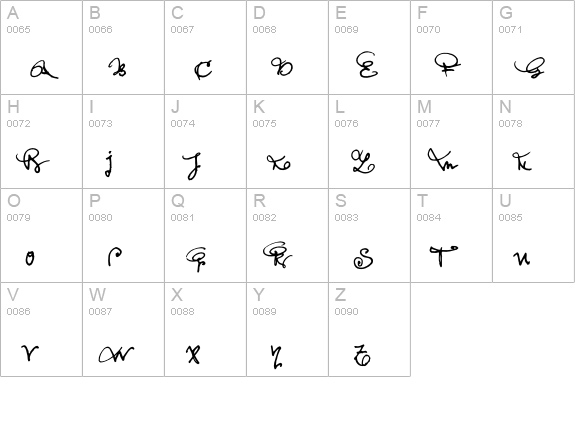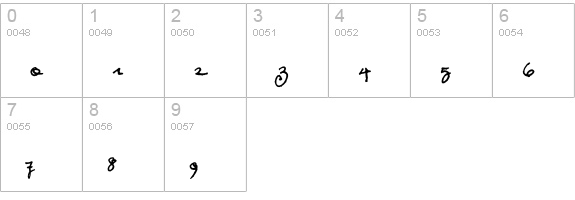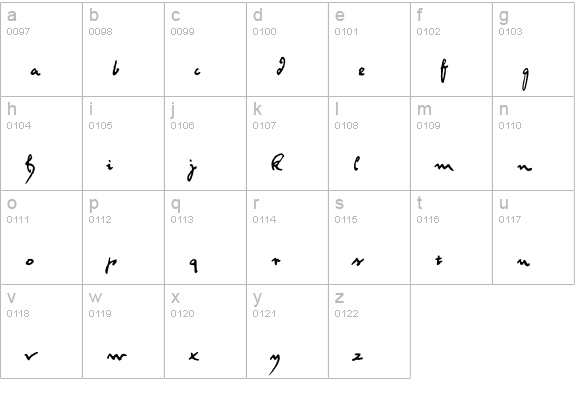
Feltrinelli Font Details
Feltrinelli font is a modern and stylish typeface that exudes sophistication and elegance. With its sleek lines and unique curves, this font is perfect for adding a touch of class to any design project. Whether you're crafting a logo, creating a poster, or designing a website, Feltrinelli font will make your text stand out and captivate your audience. The best part? Feltrinelli font is available for free download at FontsMarket.com. Now you can elevate your designs with this exquisite font without breaking the bank. Don't miss out on the opportunity to enhance your work with the beauty and versatility of Feltrinelli font. Download it today and let your creativity shine!